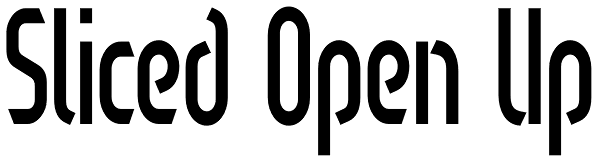
Sliced Open
This type family is the lighter, more open companion to the eye-catching Sliced volume, a masculine display face with boldly sliced terminals and angles, available in 3 widths. The complete Sliced volume numbers 14 styles, a versatile modern suite...